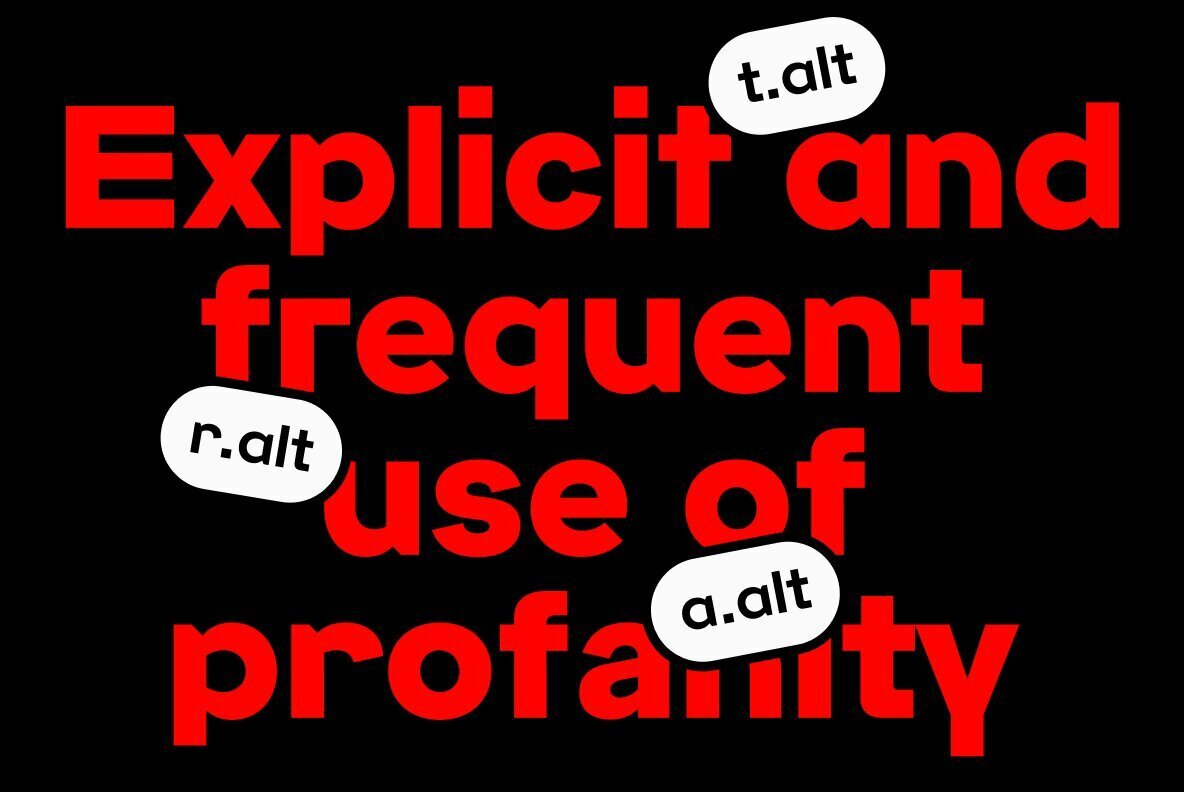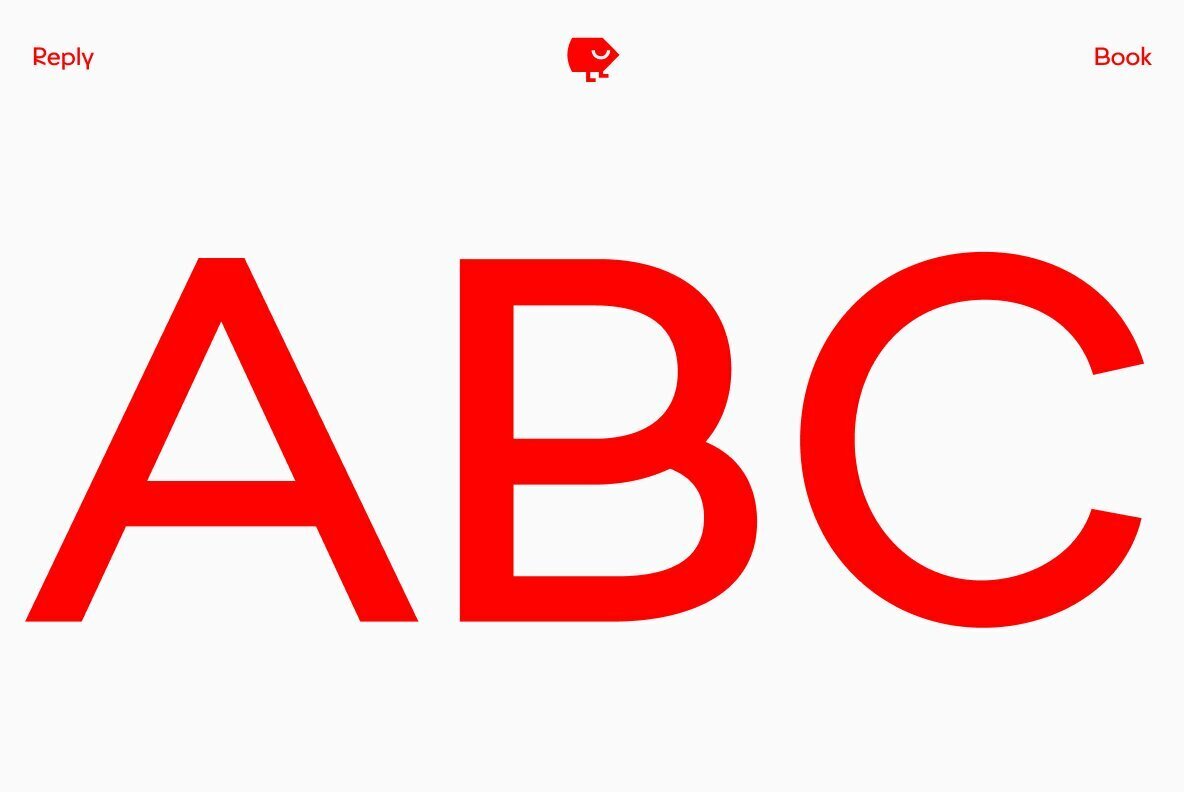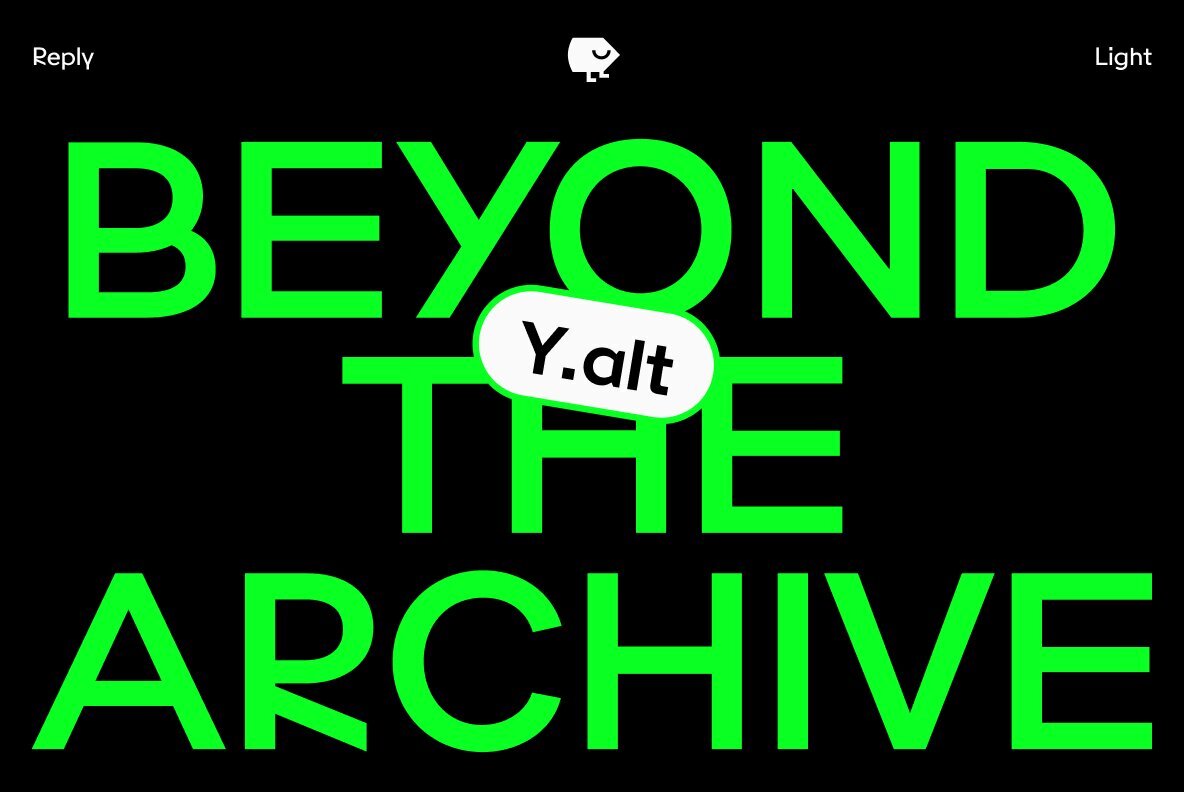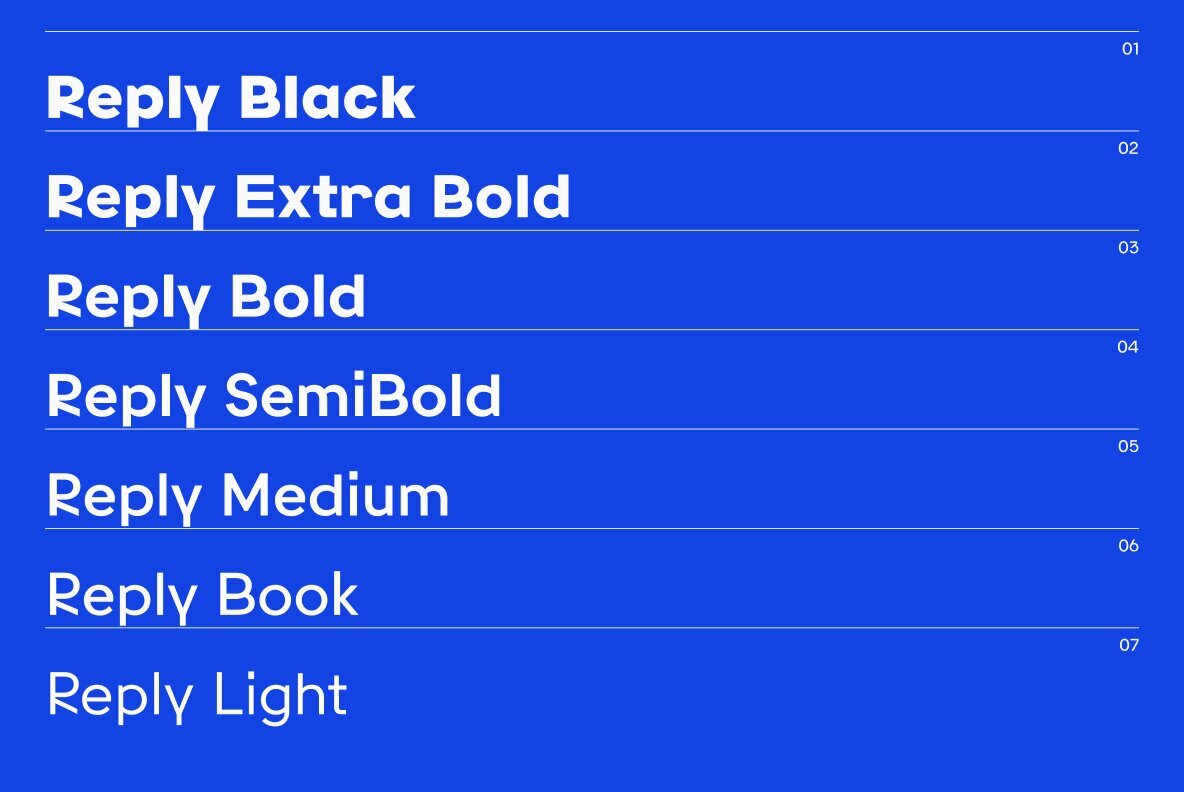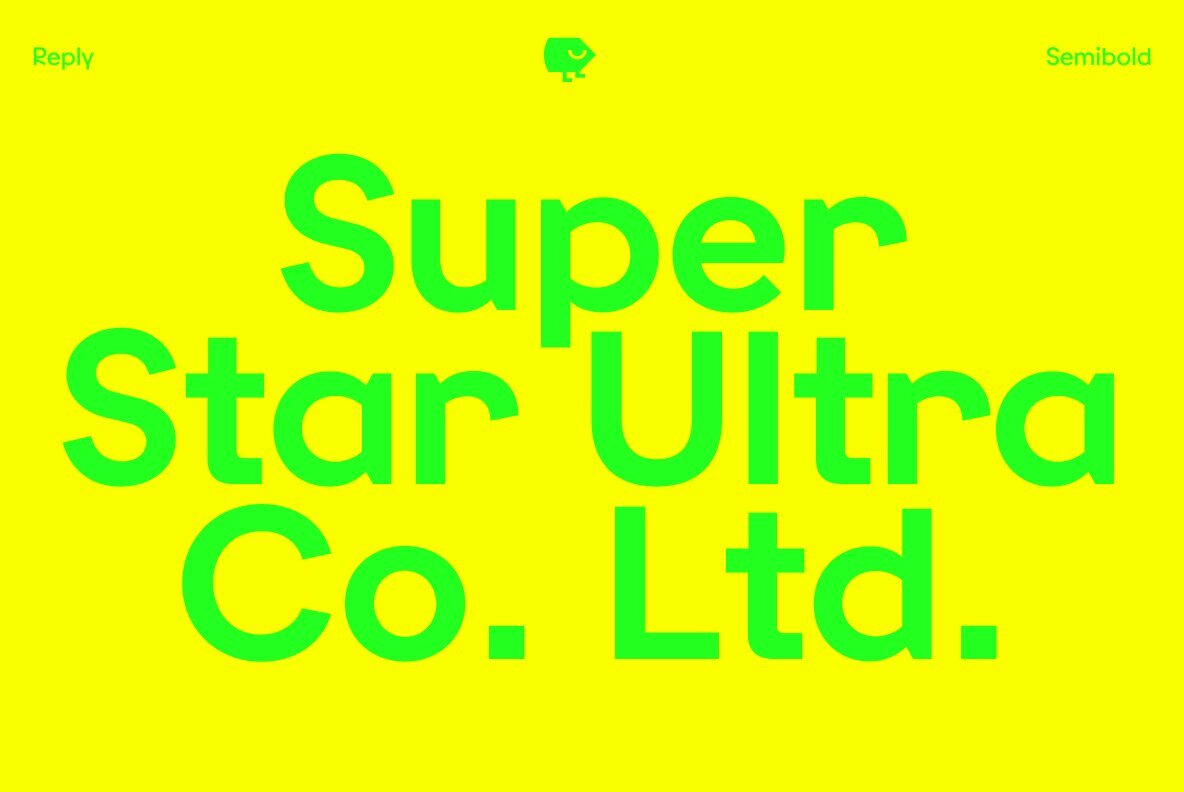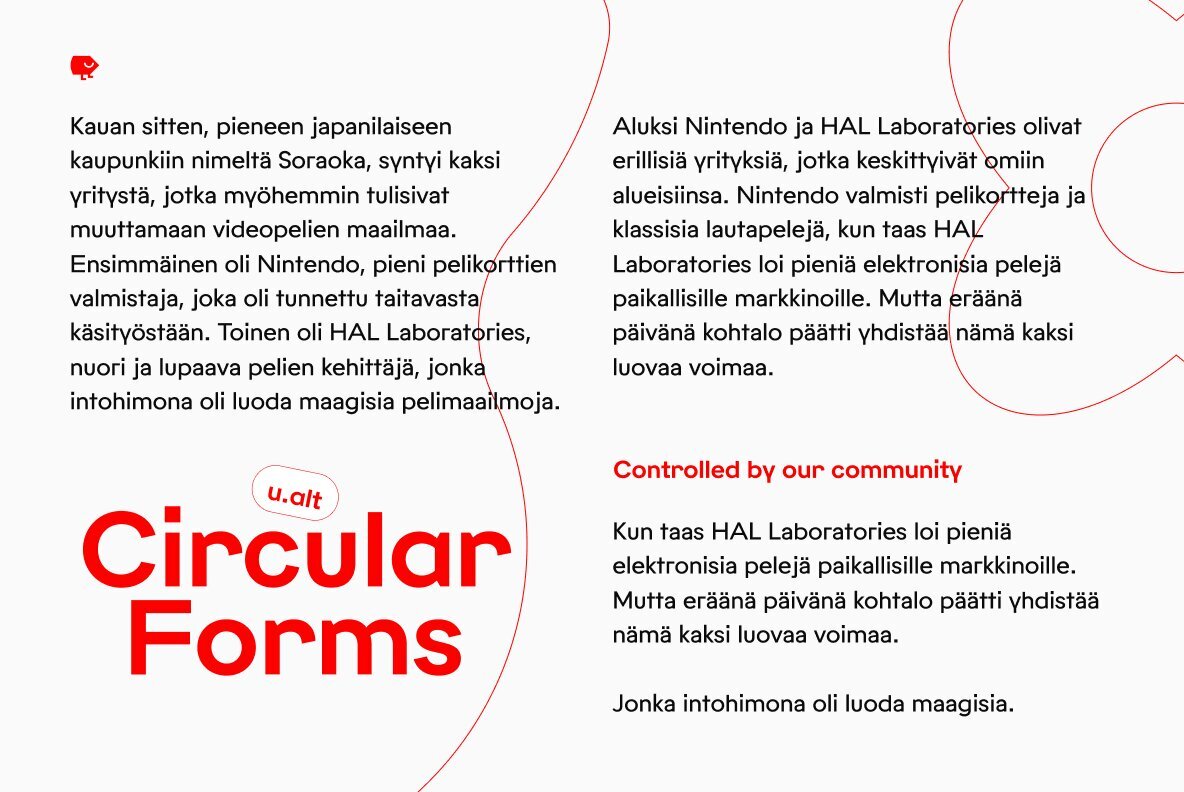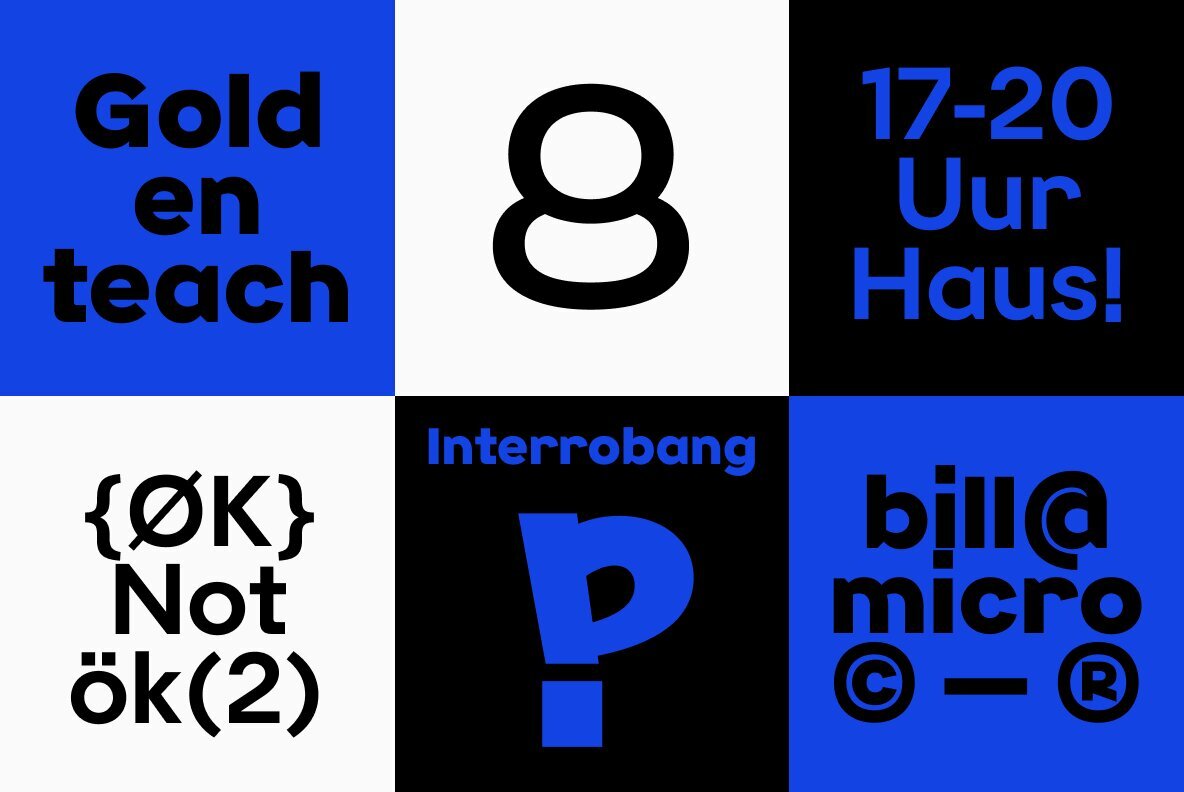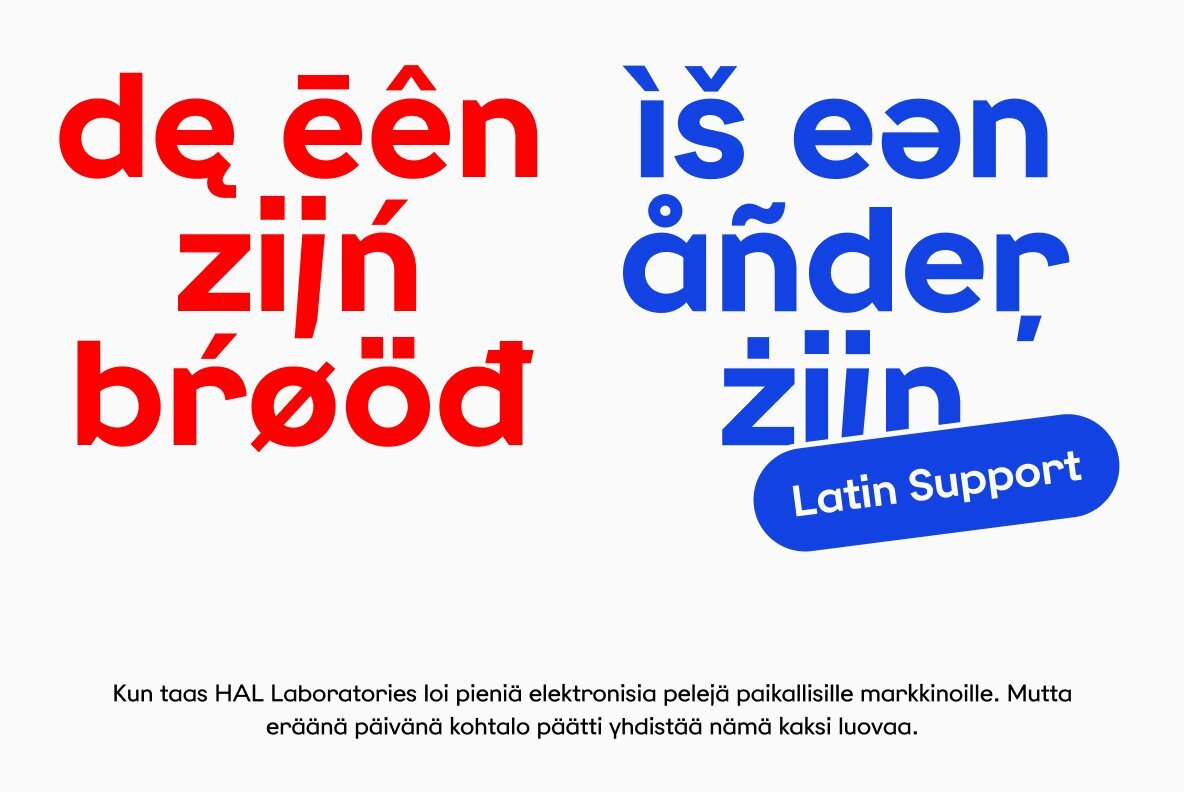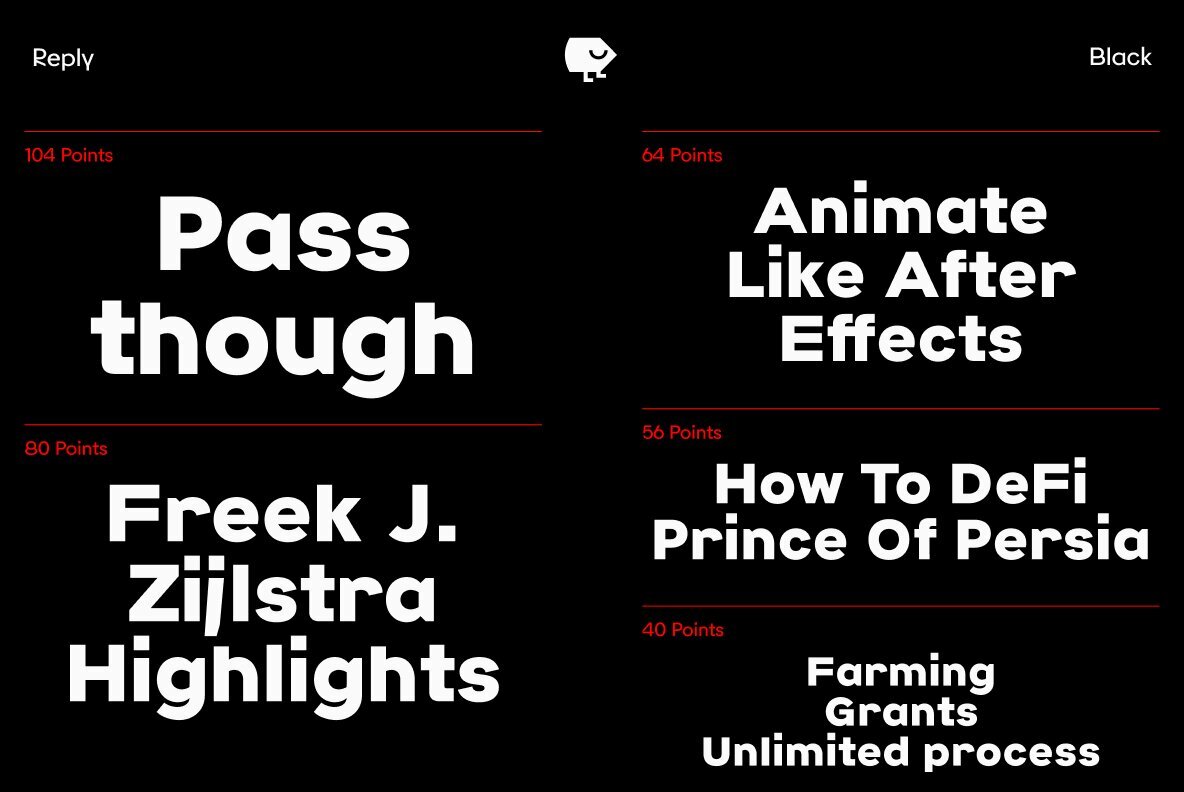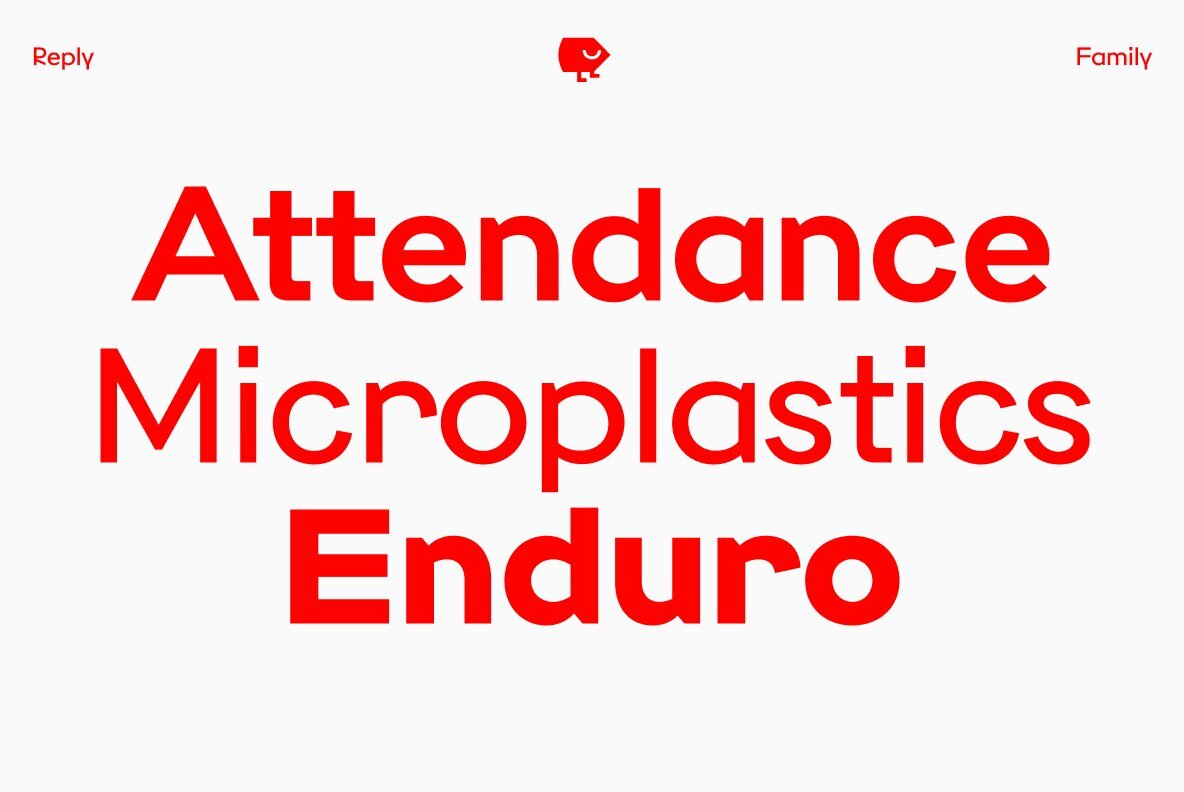
Reply Font
Discover TOMO Reply, a typeface that breaks the mold, offering a fresh perspective in the realm of sans-serif fonts. Reply seamlessly blends early 20th-century roots with contemporary flair. Ideal for modern graphic design applications, from editorial masterpieces to dynamic web designs. Reply offers an unorthodox yet harmonious font family that stands out in the corporate and digital realms. Experience the fresh perspective!